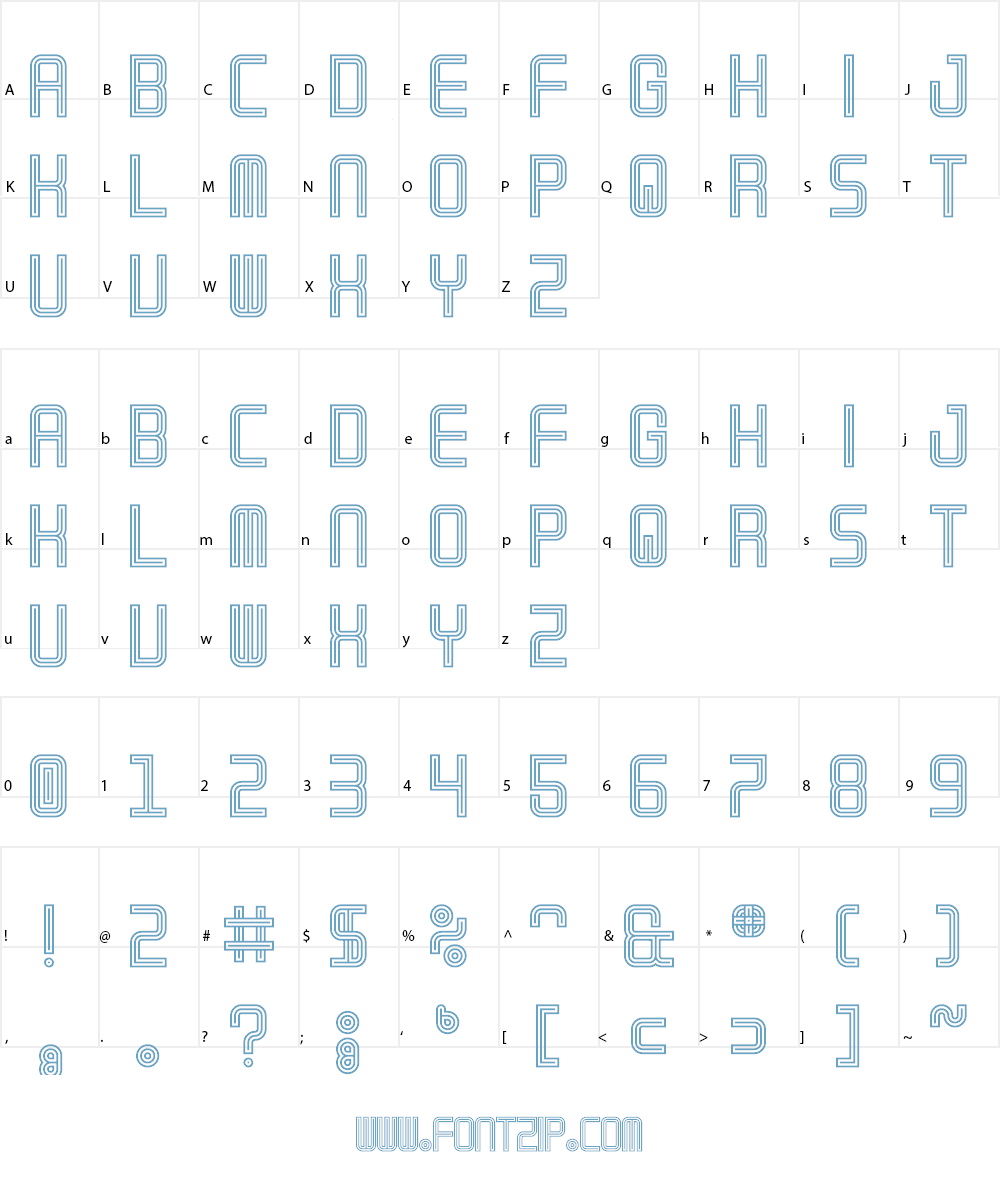
An experimental multiline design by yours truly. Supports Danish, English, Finnish, French, German, Hungarian, Icelandic, Italian, Norwegian, Portuguese, Spanish, and Swedish! Have fun. :D